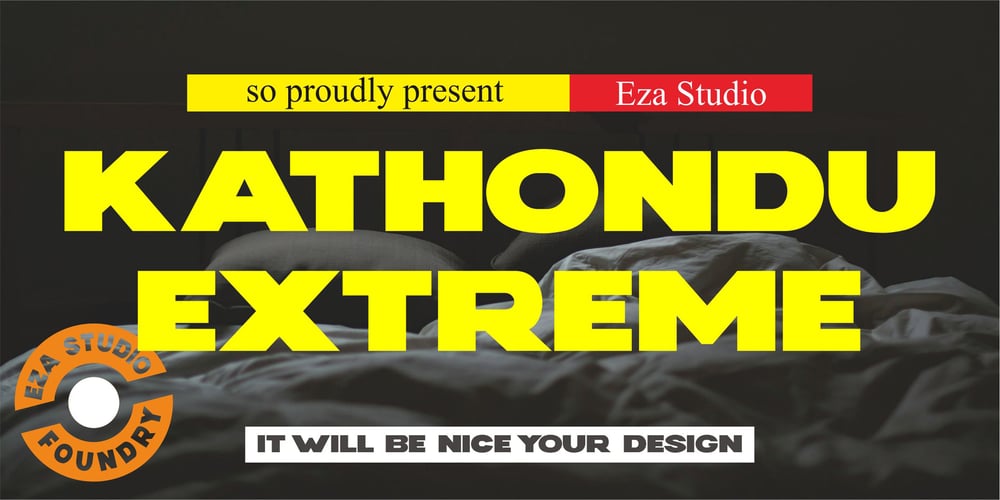
Kathondu Extreme
Kathondu Extreme font
Kathondu Extreme Font Family was designed by Aziz Mirza and published by Eza Studio. Kathondu Extreme contains 1 styles and family package options. The sans serif Kathondu Extreme displays a bold and contrasting impression that is very suitable for modern or classic designs. Kathondu Extreme is designed for logos, titles, book covers and brand identities. You can also use it for small text fragments.